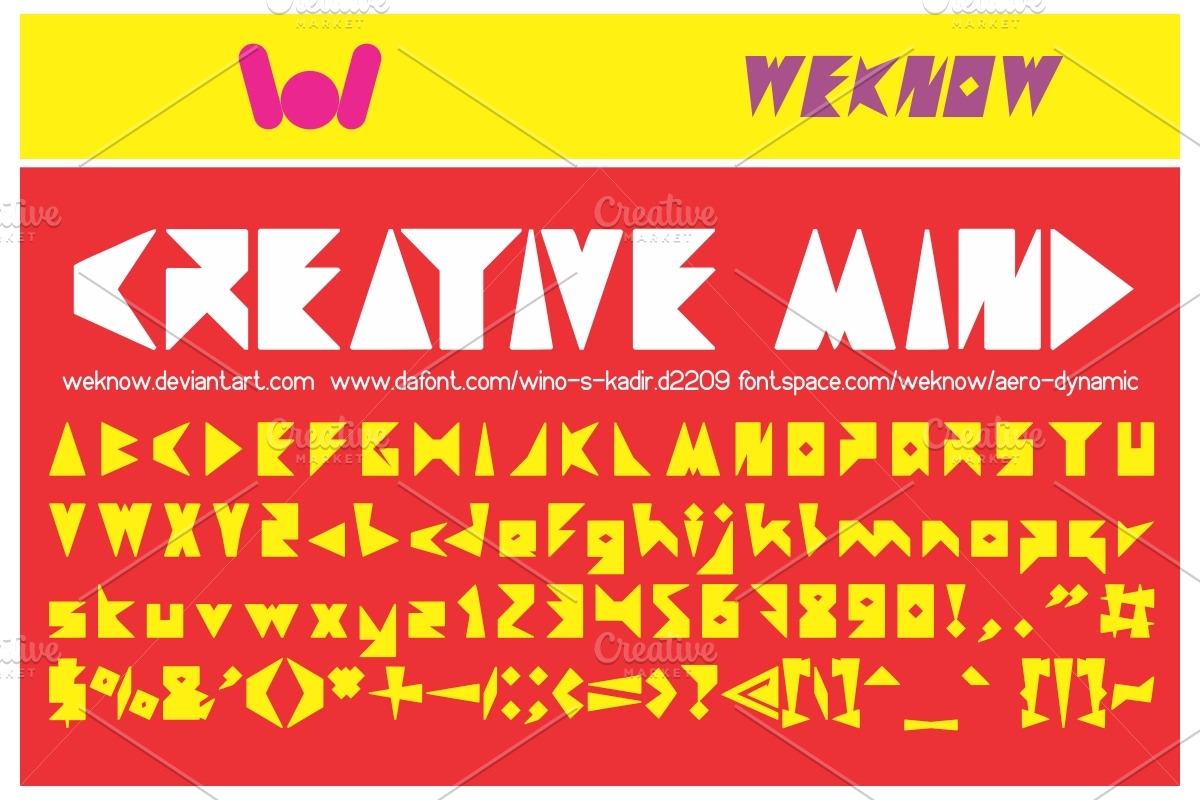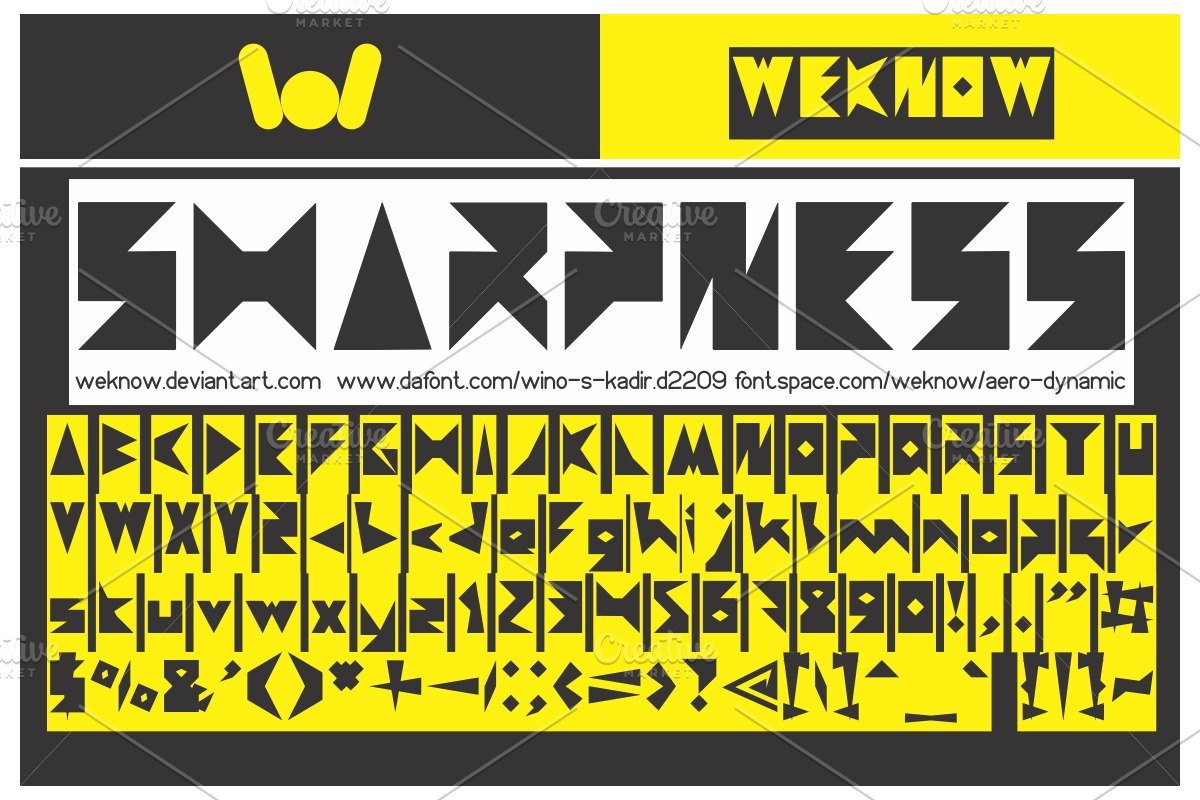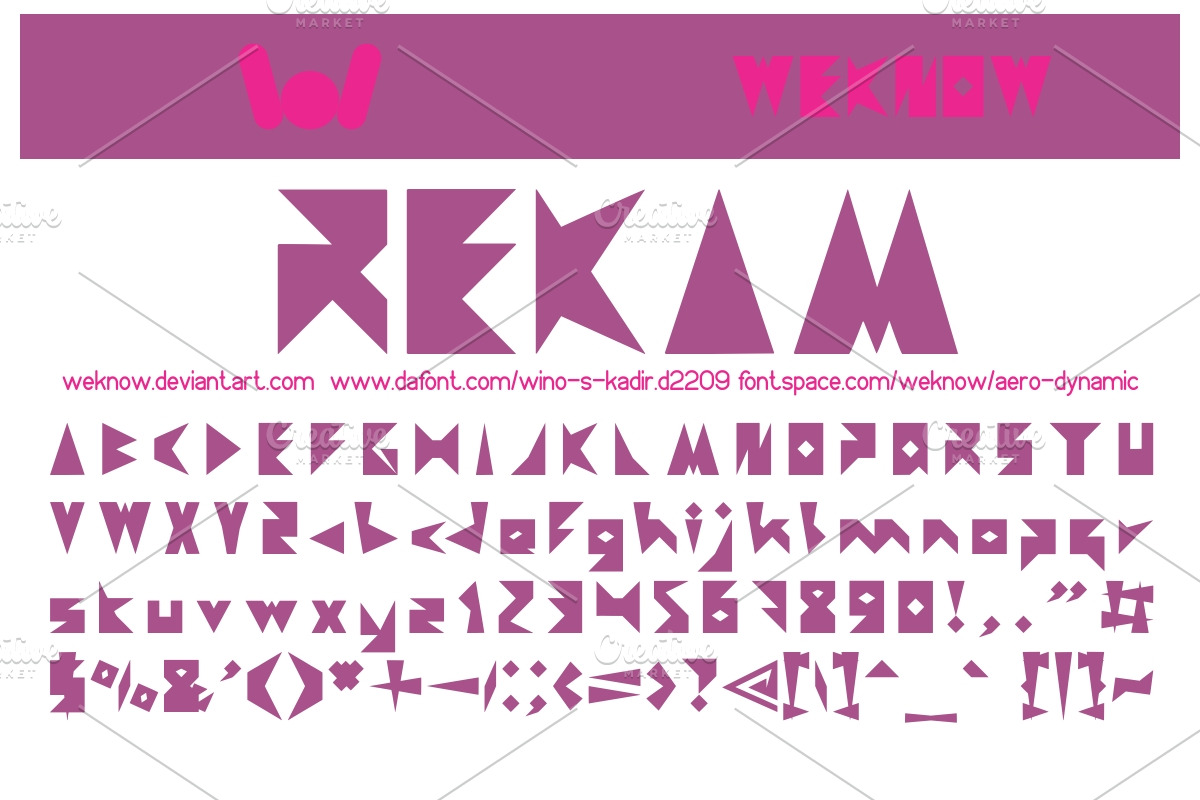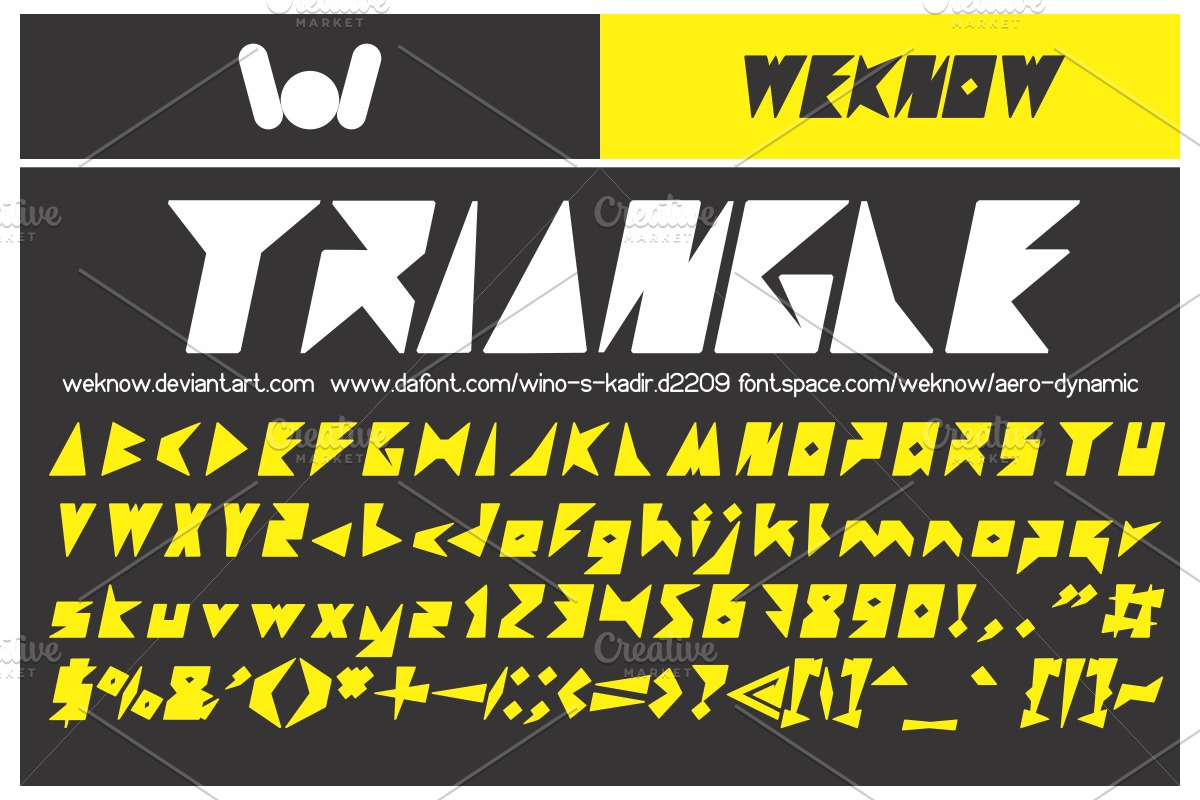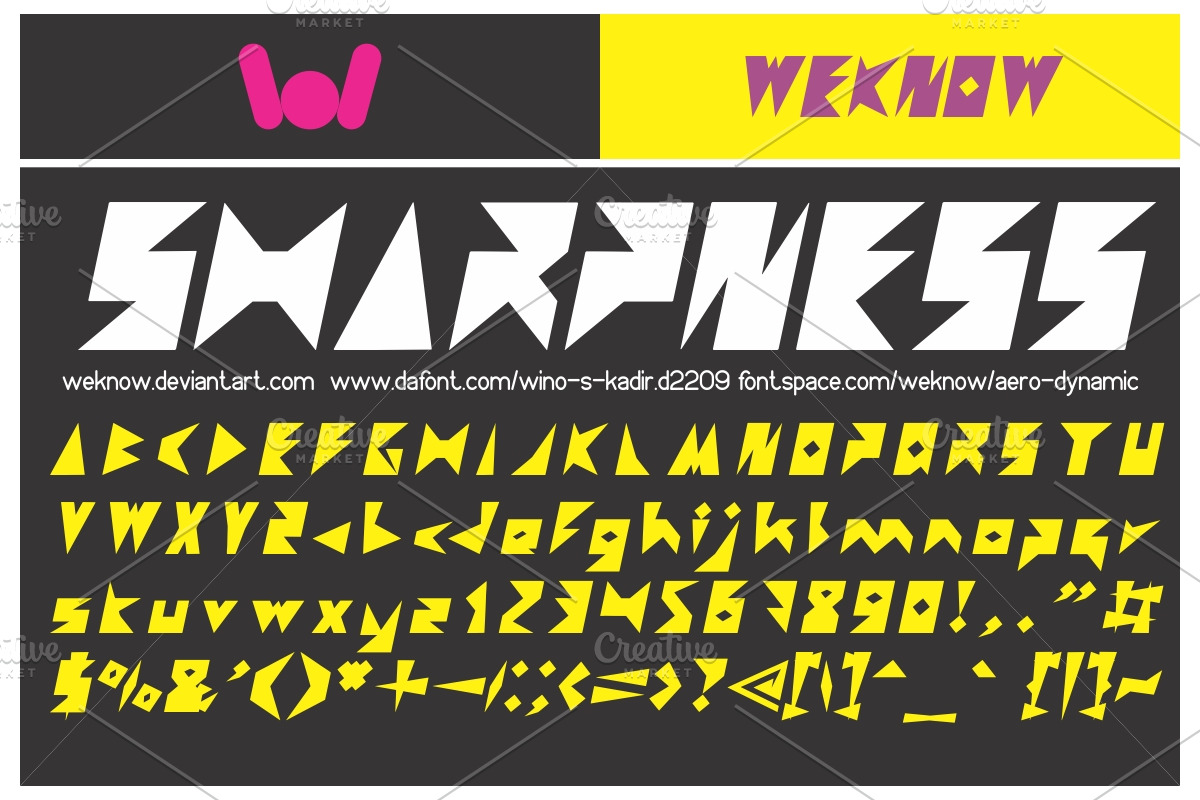
creative mind font
available style: CREATIVE MIND-Bold, CREATIVE MIND-Bold-italic, Creative Mind-Inverse, CREATIVE MIND-Italic
Why creative mind font is worth a look
creative mind font by weknow fits naturally into Branding, posters, packaging, typography.